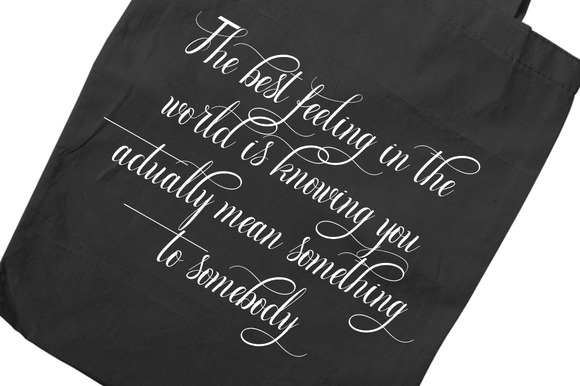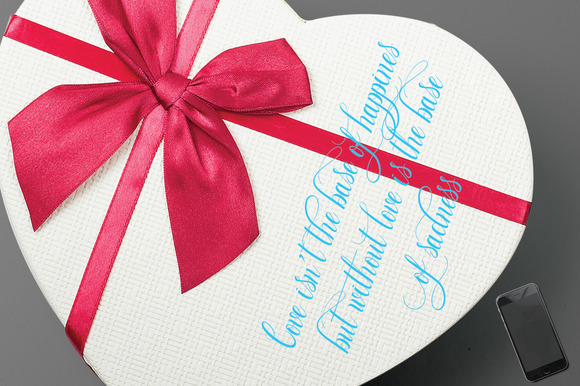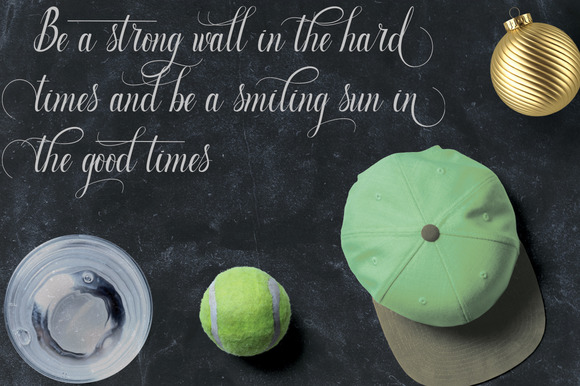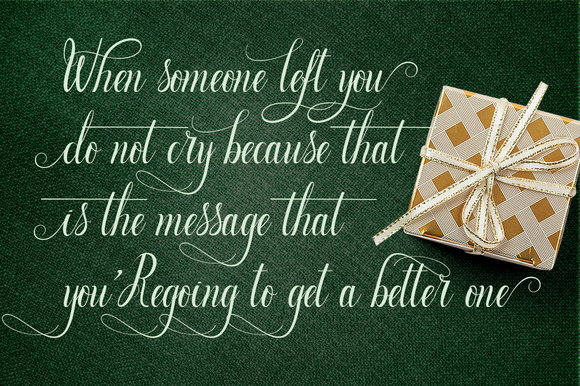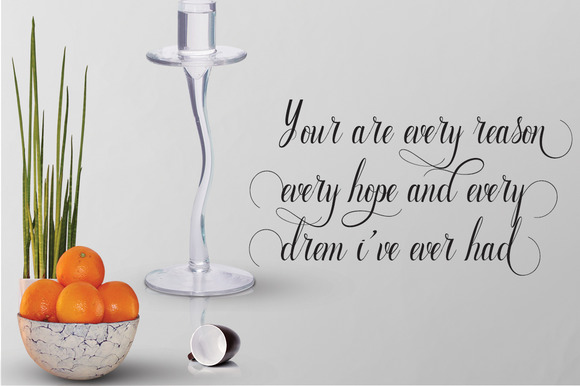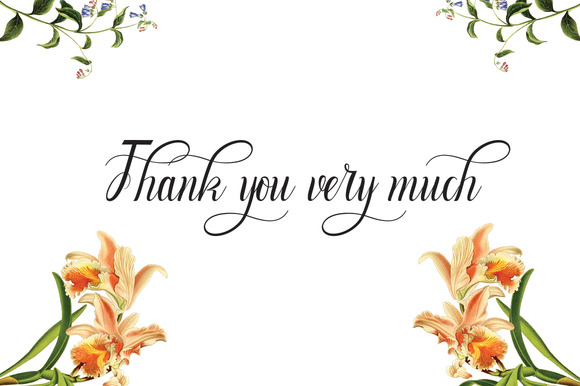
Unleashing Your Inner Artist: The Joy of Delightful Font
Have you ever found yourself sitting at your desk, pen in hand, and a spark of creativity igniting within you? It’s a feeling that’s hard to describe, but it’s a mix of excitement, nervousness, and pure joy. For designers, this feeling is a regular occurrence, and it’s what drives them to create something truly special. And that’s exactly what the Delightful Font is all about – capturing that essence of creativity and turning it into a beautiful, handwritten font that’s perfect for personal designs.
Created by hand, the Delightful Font has a natural, easy-going style that’s sure to delight designers and non-designers alike. Its modern calligraphy roots make it a versatile font that can be used in a variety of projects, from wedding invitations to social media graphics. Whether you’re a seasoned pro or just starting out, the Delightful Font is a valuable addition to any designer’s toolkit.
Delightful Font Key Features
- Font Family: Delightful Font comes in 6 unique font families, each with its own distinct style and flair.
- Character Set: Includes a comprehensive set of characters, including uppercase and lowercase letters, numbers, punctuation marks, and special characters, supporting multiple languages.
- Unique Characteristics: Delightful Font features a unique blend of modern and vintage elements, with subtle flair and personality, perfect for adding a touch of elegance to any design.
Delightful Font Review
Overall, I’m quite impressed with Delightful Font. It has a unique charm that can add a touch of personality to any design project. ✨
- Delightful Font’s script style is perfect for adding a whimsical feel to invitations, menus, and other creative projects. ✨
- The font’s subtle flair and flair make it an excellent choice for headings and titles. ✨
- Delightful Font may not be the best choice for body text, as it can be a bit difficult to read in smaller sizes. ⚠️
- The font’s unique style may not be suitable for all audiences, particularly those who prefer a more traditional or minimalist aesthetic. ⚠️
Overall, I’d give Delightful Font 4 out of 5 stars. While it may have some limitations, its unique charm and versatility make it a great addition to any designer’s toolkit. With a bit of careful selection and use, Delightful Font can add a touch of magic to your designs.
Delightful Font is perfect for:
- Creative projects such as invitations, posters, and brochures.
- Branding and marketing materials such as business cards and logos.
- Editing text in images and graphics to add a touch of elegance and sophistication.
For best results, use Delightful Font in conjunction with other elegant and sophisticated design elements to create a cohesive and visually appealing look